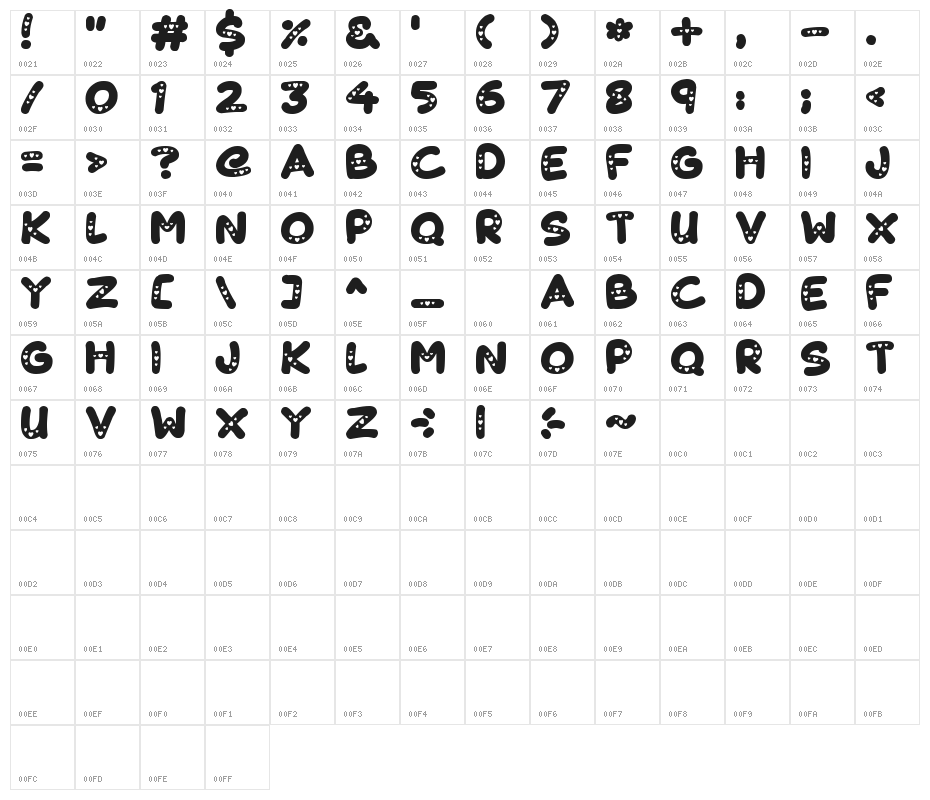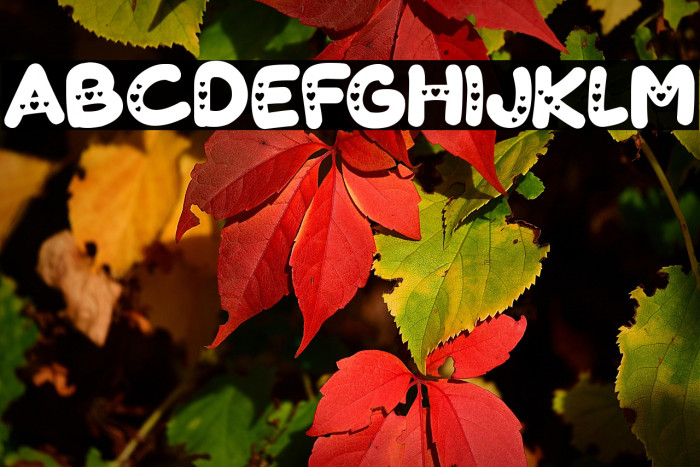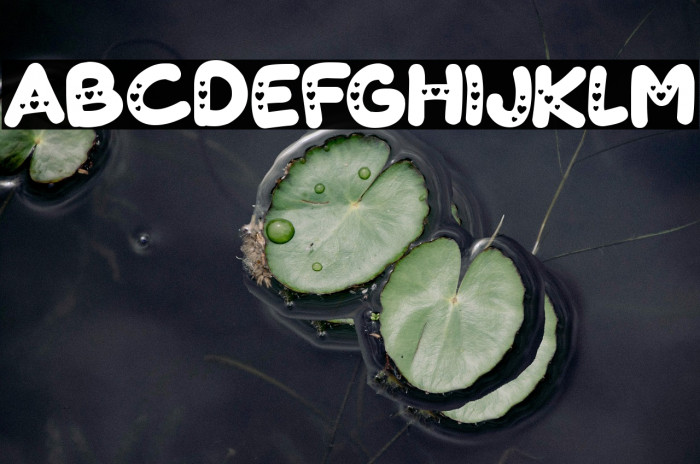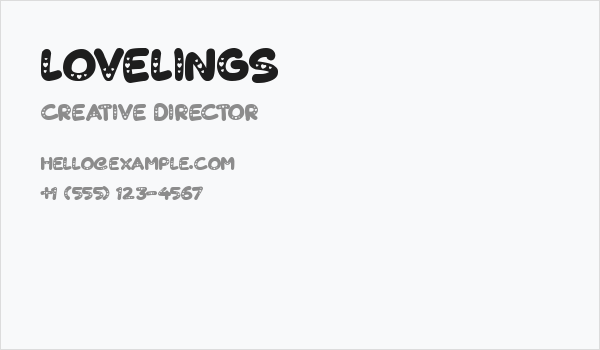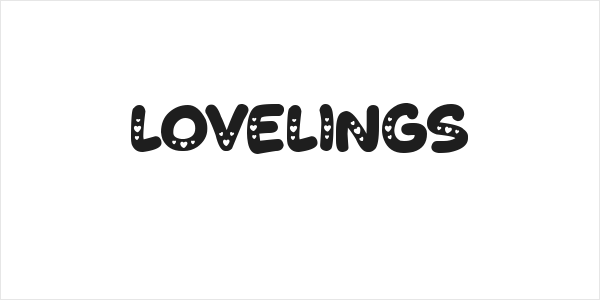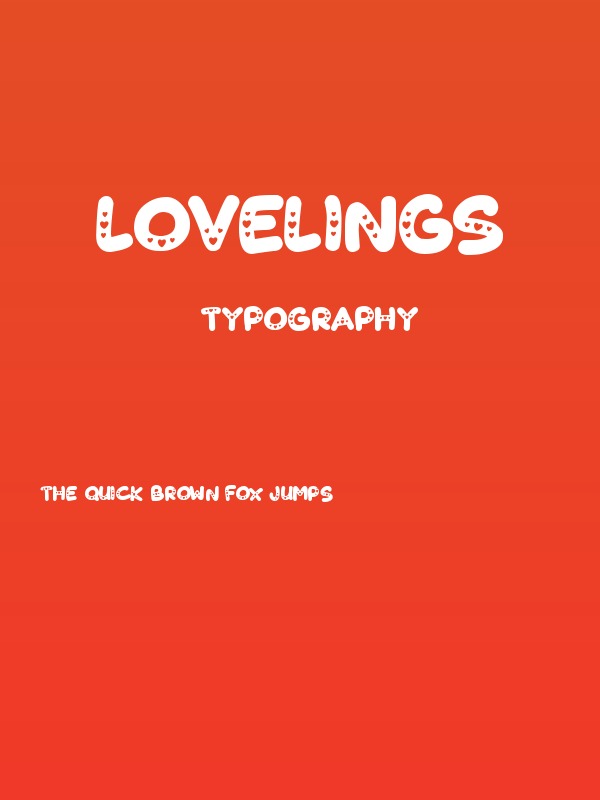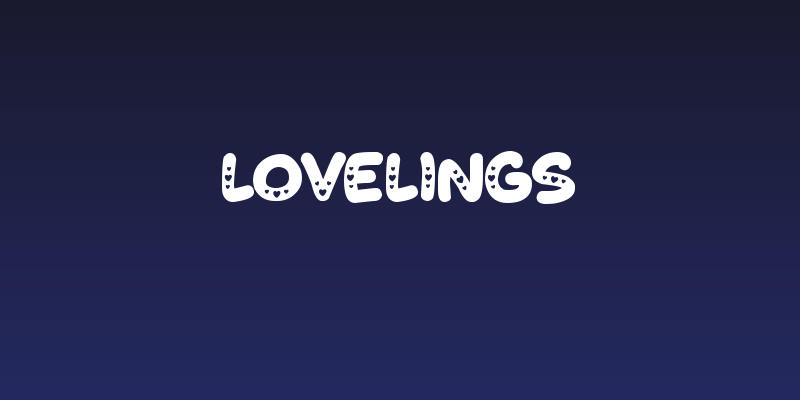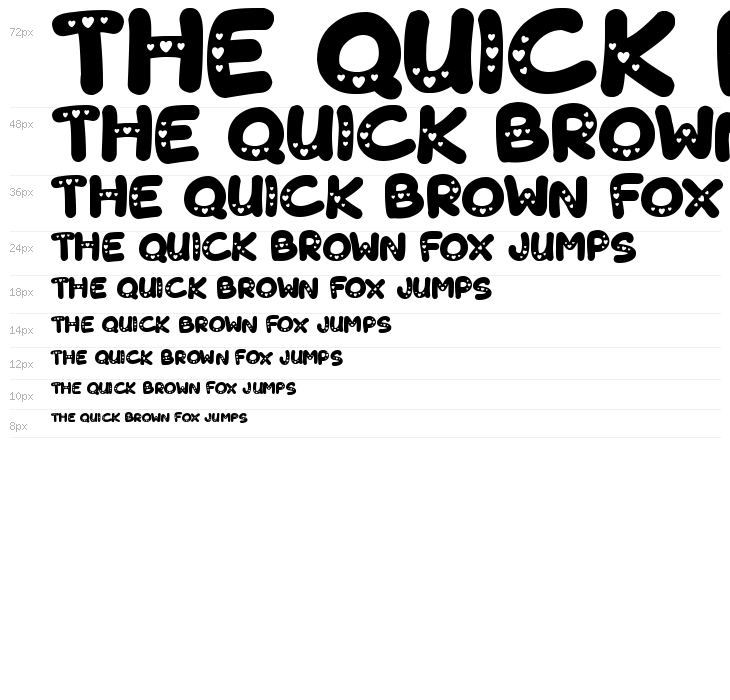
Lovelings Font
Lovelings Description
This playful and whimsical font features bold, rounded characters with heart-shaped cutouts, adding a touch of charm and fun. The letters are uniformly thick, creating a strong visual impact. The font's unique style is perfect for conveying a sense of joy and creativity. Its decorative elements make it stand out, while the consistent stroke width ensures readability. The heart motifs within the characters add a romantic and friendly vibe, making it ideal for projects that require a lighthearted and engaging appearance.
| Proposed Projects | Ideal for children's books, greeting cards, playful branding, and Valentine's Day promotions. |